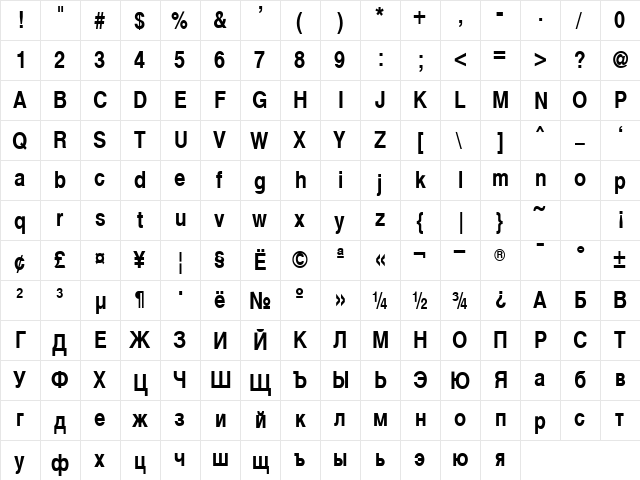
Cyrvetica-Narrow Bold
Design Context for Cyrvetica-Narrow Typeface
Cyrvetica-Narrow offers clean, dependable letterforms without strong stylistic allegiance, making it a practical choice for designers who need flexibility. The heavy weight commands attention and anchors typographic hierarchies. Its narrow stance lets it pack a punch even in space-constrained designs.